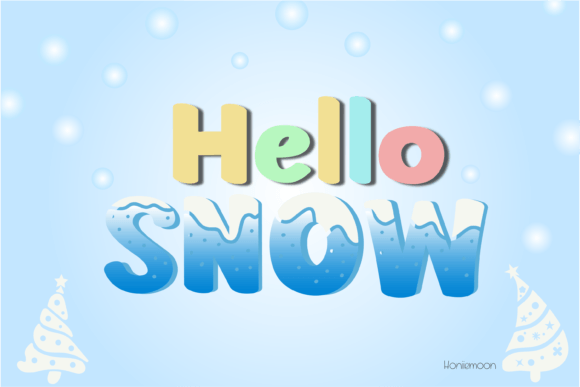
Venture into a realm of boundless creativity with Hello Snow Font, the enchanting display font that ignites joy and playfulness in your designs. Step into a world where imagination knows no bounds, where colors dance and characters leap off the page.
Hello Snow is more than just a font; it's a gateway to a whimsical world where your ideas take center stage. Its cheerful and jolly aura transforms ordinary words into captivating expressions, bringing life to your projects. Whether you're crafting logos, posters, or eye-catching headlines, Hello Snow adds a touch of magic that leaves a lasting impression.
Picture the delight of a child receiving a colorful gift, their eyes sparkling with wonder. Hello Snow Font captures that same sense of wonder and excitement, injecting it into your designs. Its playful curves and bold strokes evoke a sense of joy and lightheartedness, making it the perfect choice for projects aimed at children, families, and anyone seeking a touch of whimsy.
Unleash your inner artist and let Hello Snow Font guide you on a journey of creativity. Its versatility knows no bounds, allowing you to create designs that reflect your unique style and vision. From playful invitations to captivating social media posts, Hello Snow adds a spark of charm that resonates with audiences of all ages.
With Hello Snow Font, the possibilities are endless. Let your imagination soar, embrace the magic of creativity, and watch as your designs come alive with joy and wonder. Discover the limitless potential that awaits you with Hello Snow Font, the ultimate choice for designers seeking to captivate and inspire. Seize the moment and embark on a creative adventure like never before!